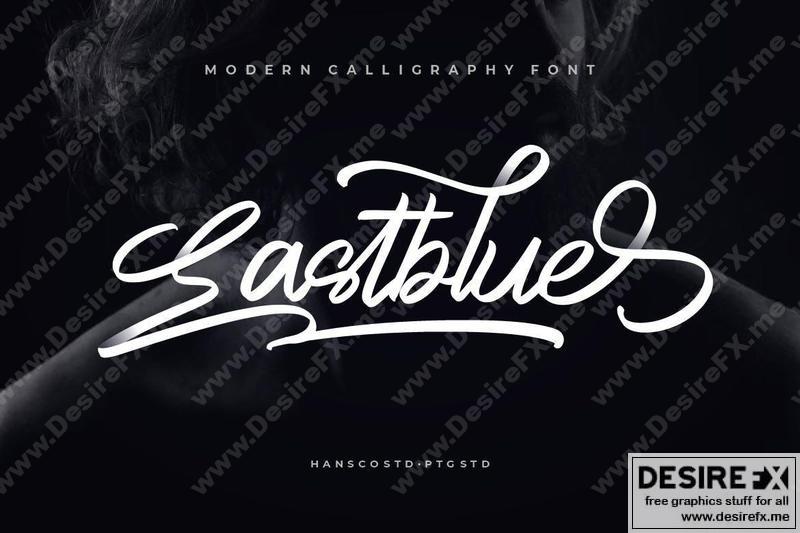
Eastblue TTE5PKQ
Eastblue is a modern calligraphic font, with each letter having been carefully designed to make your text look beautiful. With its modern script style, this font will be suitable for various projects, for example: quotes, blog titles, branding, logos, fashion, invitations, greeting cards, posters, business cards, clothing, letters, stationery, and more. This font make your designs instantly professional and amazingly. You will also get a bonus swash in the inside of the font which will make your project look perfect. To access it you can use the Font Book on your Mac or the Character Map on your windows. Comes with a full uppercase, lowercase, numbers, punctuation and with extensive language support, it’s going to be a very usable addition to your project. Be a perfect professional in a minute and start creating with this font today!
• Alternate & Swashes